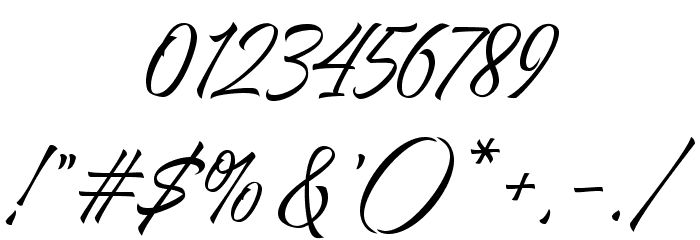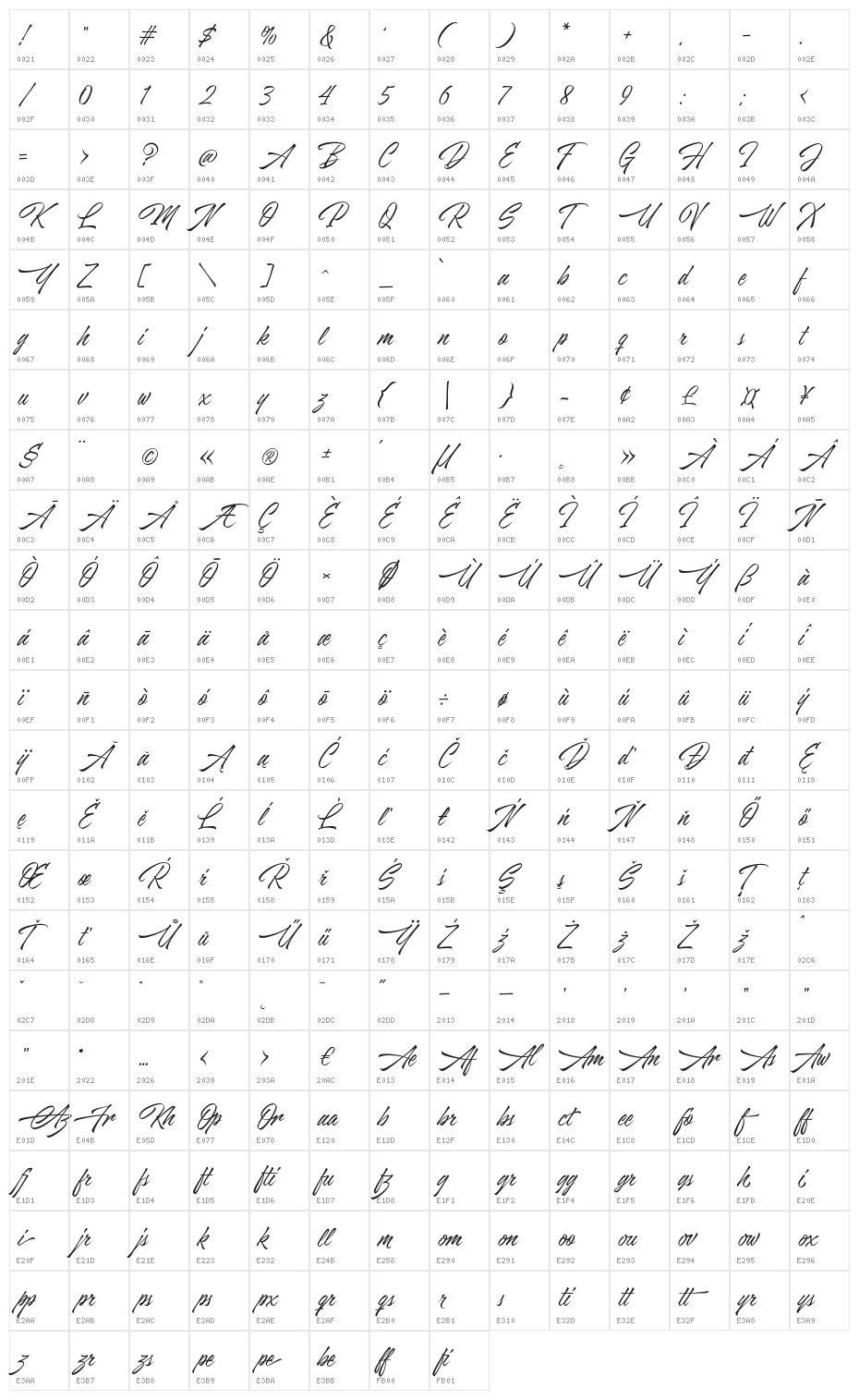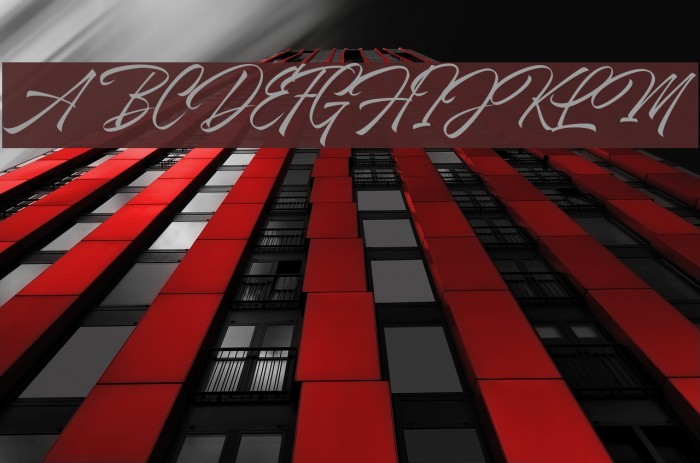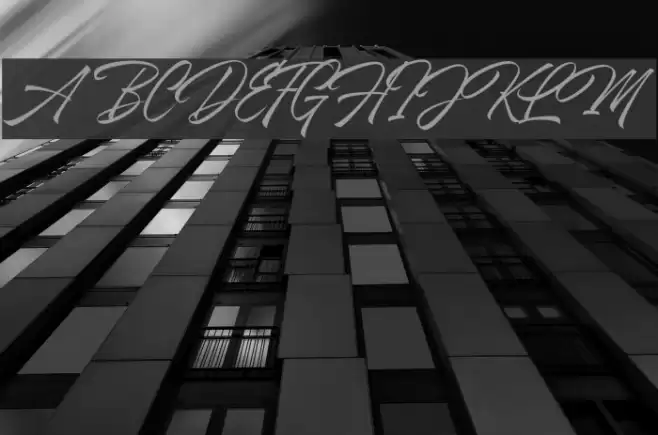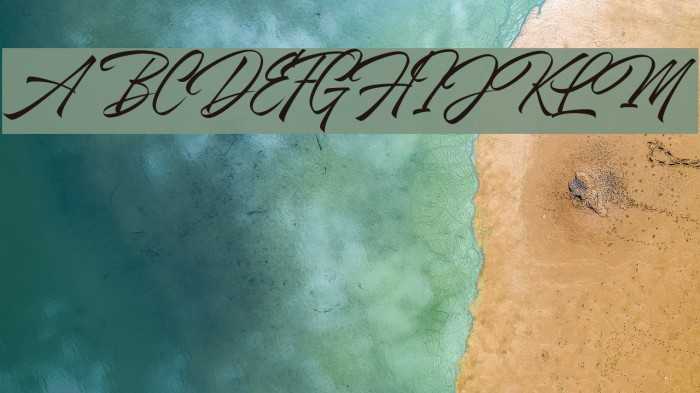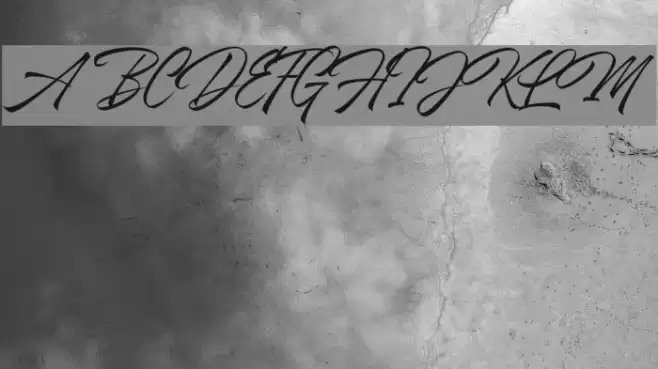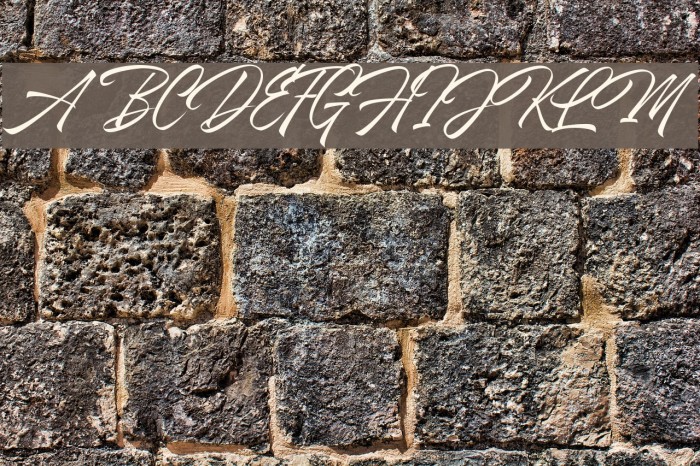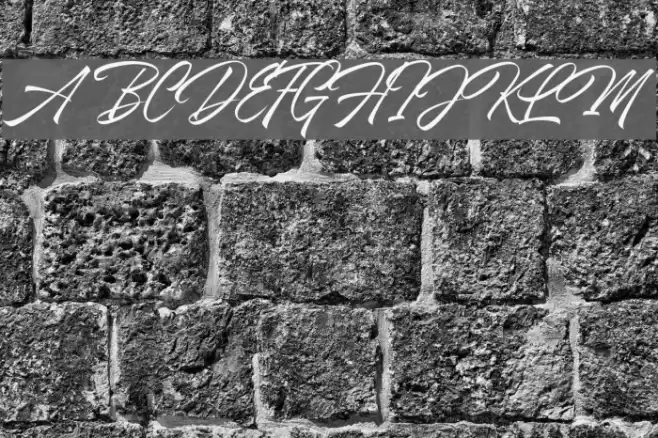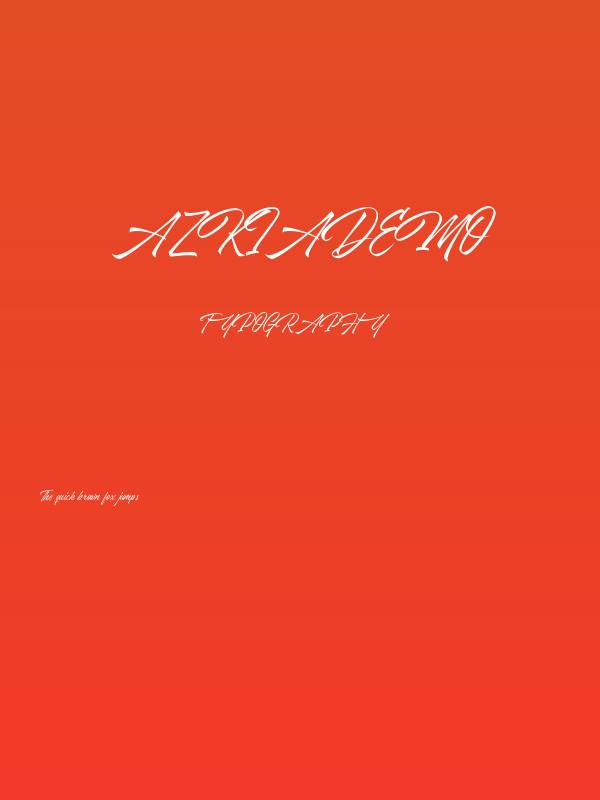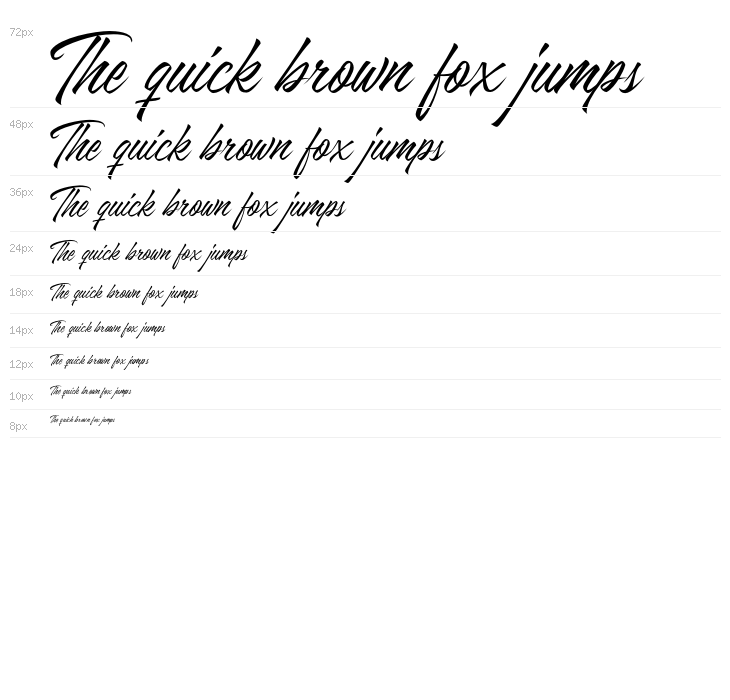
AzkiaDemo Font
AzkiaDemo Description
This font exudes a dynamic and elegant script style, characterized by its fluid and cursive letterforms. The strokes are smooth and connected, giving it a handwritten appearance that is both stylish and sophisticated. The uppercase letters are bold and sweeping, while the lowercase letters maintain a consistent flow, enhancing readability. The numerals and special characters are crafted with the same attention to detail, ensuring a cohesive look across all glyphs. This font is ideal for projects that require a personal touch, such as invitations, greeting cards, or branding materials.